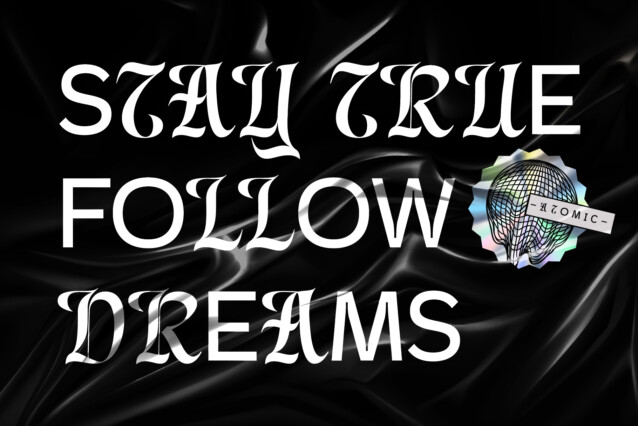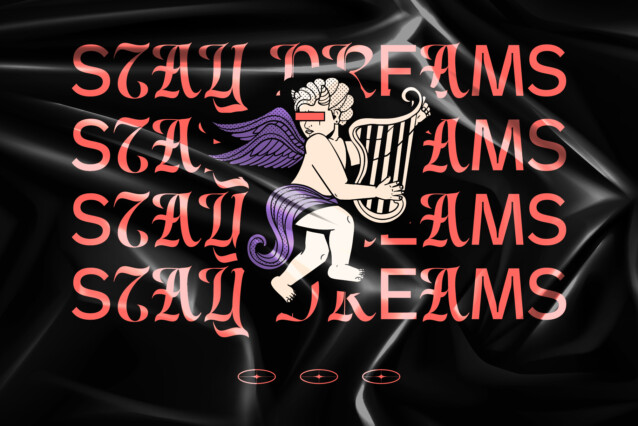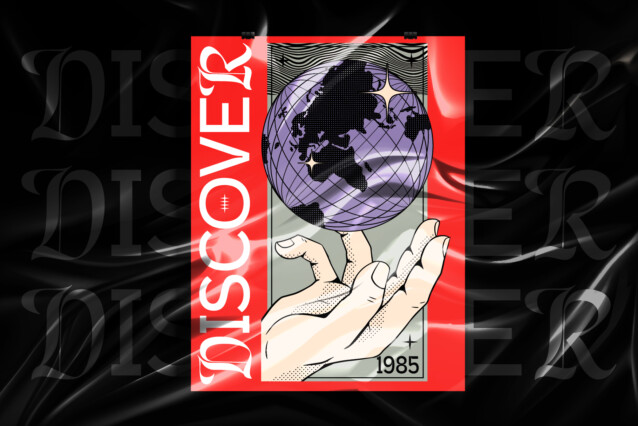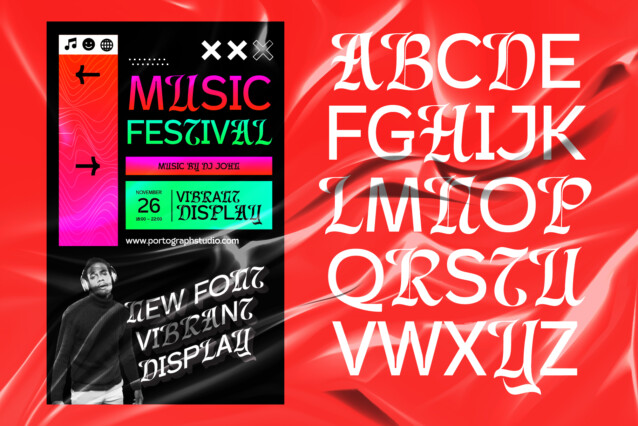
Vibrant Display Typeface
Vibrant Display Typeface looks great when combined with solid character fonts. For branding projects, logos, wedding designs, social media posts, advertisements, product packaging, product designs, labels, photography, watermarks, invitations, stationery, and anything requiring handwritten taste, Vibrant Display is perfect.